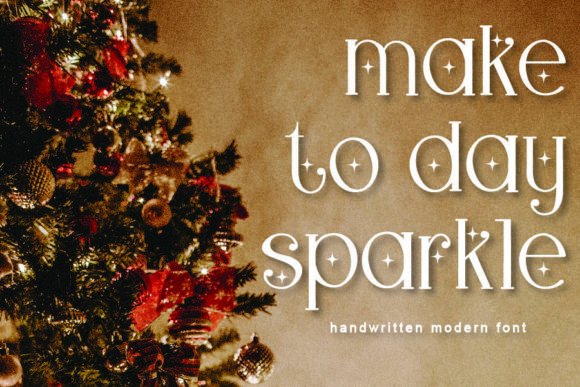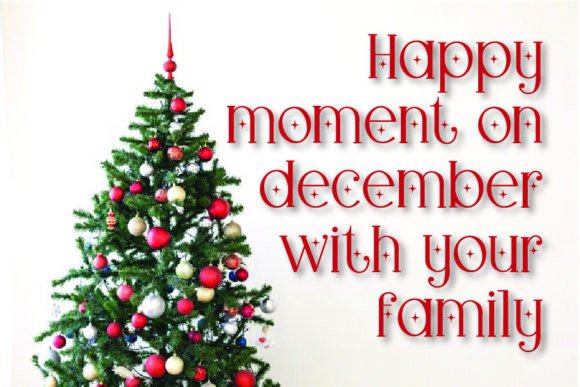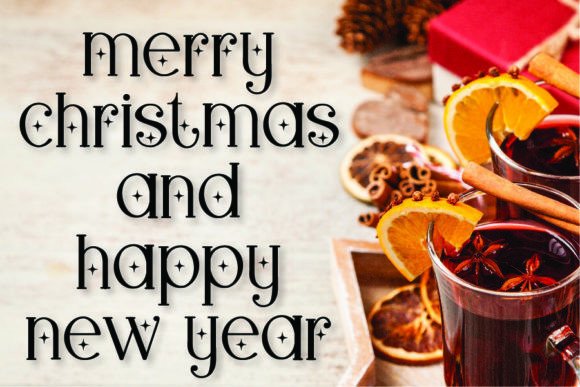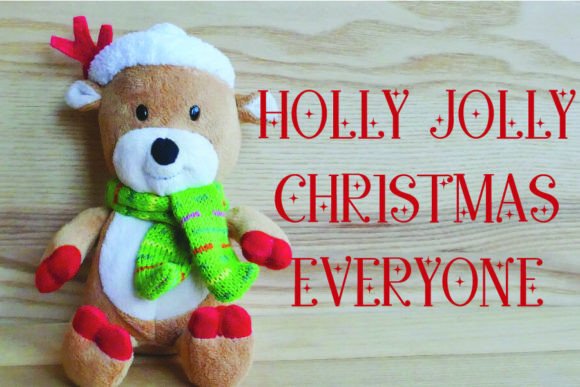
Christmas Holiday Font: Add a Touch of Cheer to Your Holiday Designs
The Christmas holiday season is a time for joy, giving, and celebration. As a designer or crafter, you’re likely looking for ways to add a festive touch to your projects. One of the best ways to do this is with a cheerful and festive font, like the Christmas Holiday Font. In this article, we’ll take a closer look at this fun and unique typeface, and explore how you can use it to add some holiday magic to your designs.
What is the Christmas Holiday Font?
The Christmas Holiday Font is a specially designed typeface that captures the youthful spirit of the Christmas holiday season. With its fun and playful design, this font is perfect for adding a touch of holiday cheer to your Christmas-themed designs. Whether you’re creating greeting cards, invitations, or social media graphics, this font is sure to bring a smile to people’s faces.
Key Features of the Christmas Holiday Font
So, what makes the Christmas Holiday Font so special? Here are just a few of its key features:
- Fun and playful design: The Christmas Holiday Font features a unique and playful design that’s perfect for the holiday season.
- Youthful spirit: This font captures the youthful spirit of Christmas, making it perfect for designs that need to appeal to a younger audience.
- Festive feel: The Christmas Holiday Font has a distinctly festive feel that’s sure to add a touch of holiday cheer to your designs.
How to Use the Christmas Holiday Font
Using the Christmas Holiday Font is easy. Here are a few ways you can add it to your projects:
- Pair with other fonts: For added visual interest, try pairing the Christmas Holiday Font with other fonts. A bold font paired with a script font can create a beautiful and eye-catching design.
Design Ideas Using the Christmas Holiday Font
The Christmas Holiday Font is versatile and can be used in a variety of designs. Here are a few ideas to get you started:
- Holiday greeting cards: Add a personal touch to your holiday greeting cards with the Christmas Holiday Font.
- Social media graphics: Create festive social media graphics using the Christmas Holiday Font to add some holiday cheer to your followers’ feeds.
- Invitations: Use the Christmas Holiday Font to create festive invitations for holiday parties or events.
- DIY crafts: Add a touch of holiday cheer to your DIY crafts, such as ornaments or gift tags, with the Christmas Holiday Font.
Tips for Using the Christmas Holiday Font
Here are a few tips to keep in mind when using the Christmas Holiday Font:
- Use it sparingly: While the Christmas Holiday Font is festive and fun, it can be overwhelming if used too much. Use it sparingly to add a touch of holiday cheer to your designs.
- Experiment with colors: The Christmas Holiday Font looks great in a variety of colors, so don’t be afraid to experiment and find the perfect color scheme for your design.
- Pair with images: Pairing the Christmas Holiday Font with festive images, such as holly or snowflakes, can create a beautiful and eye-catching design.
The Christmas Holiday Font is a fun and festive typeface that’s perfect for adding a touch of holiday cheer to your designs. With its playful design and youthful spirit, this font is sure to bring a smile to people’s faces. Whether you’re a designer or crafter, the Christmas Holiday Font is a great addition to your design toolkit. So why not give it a try and see the magic happen?